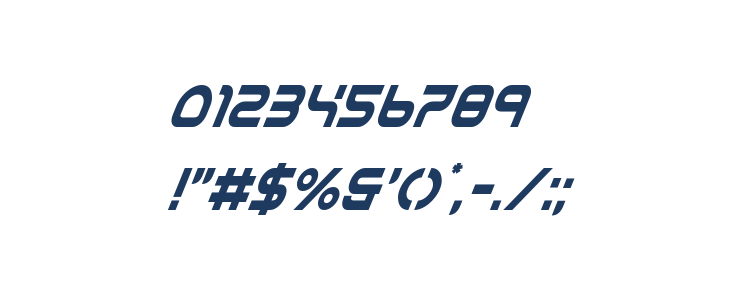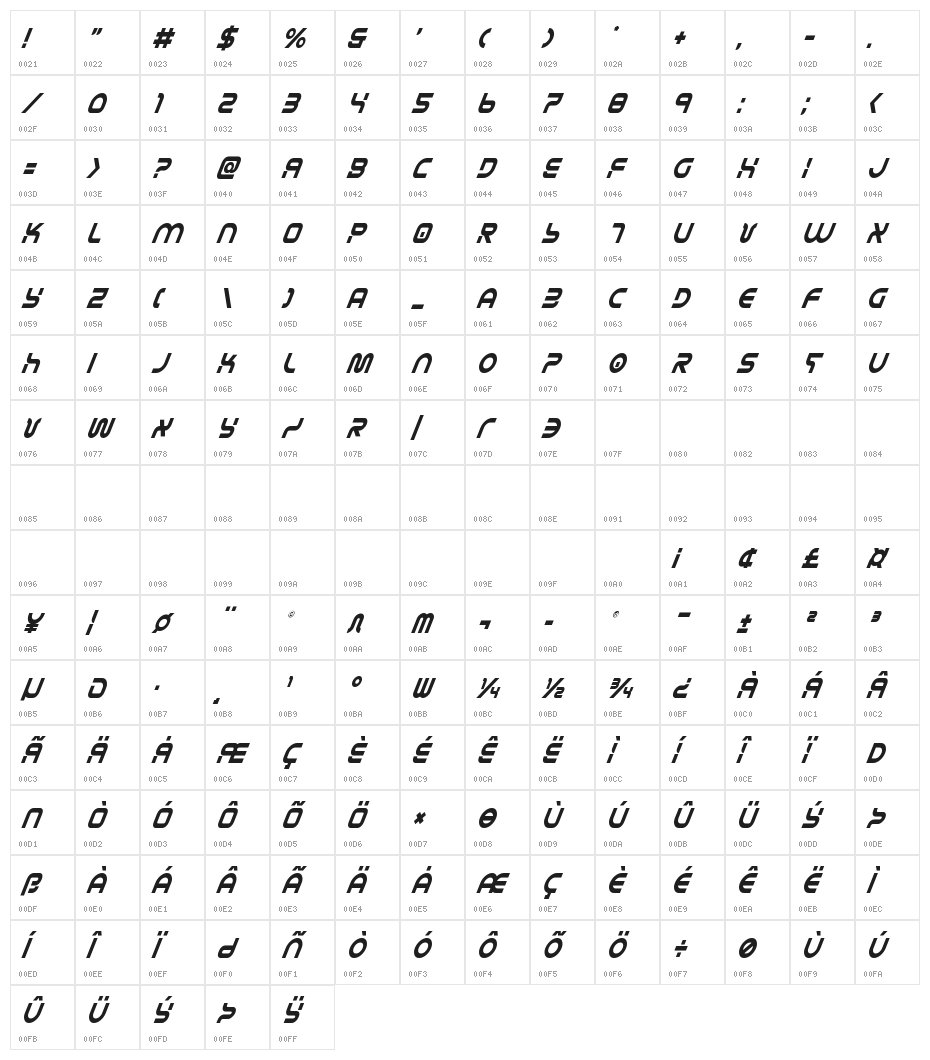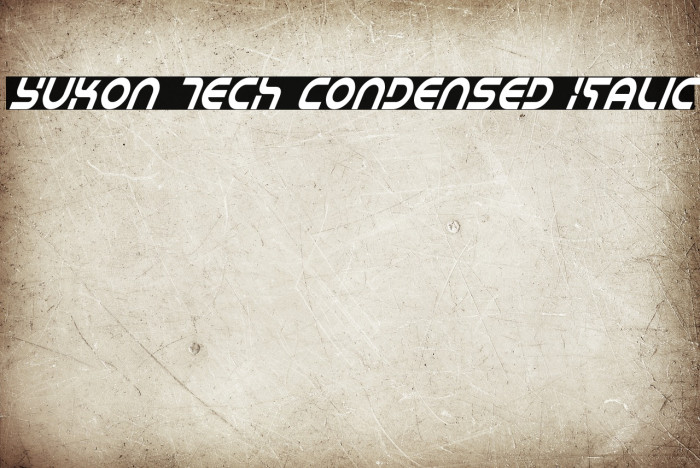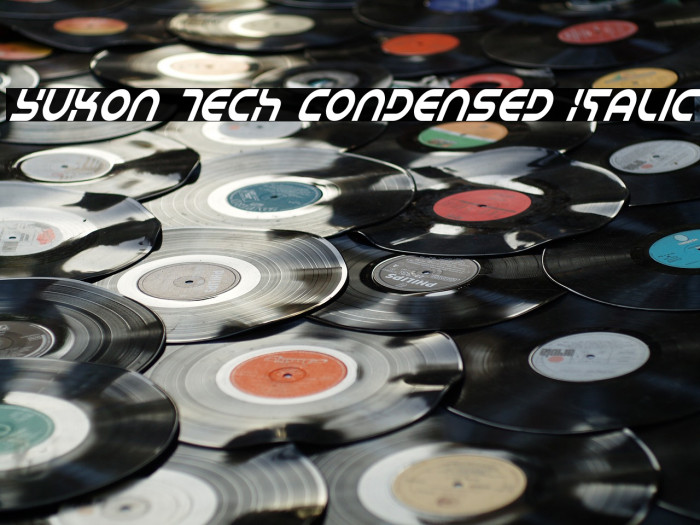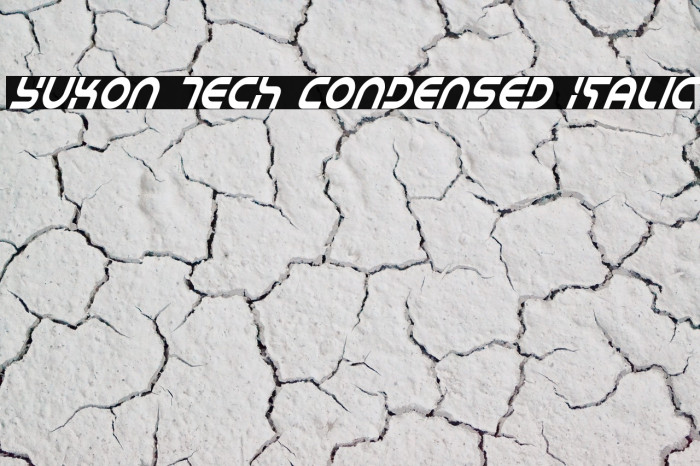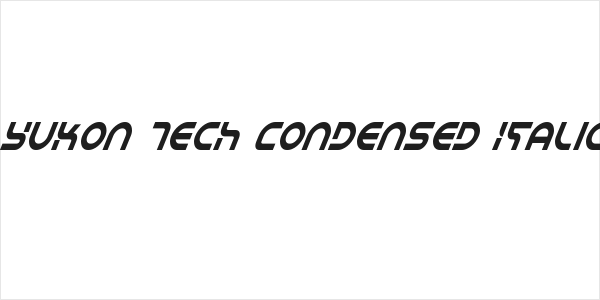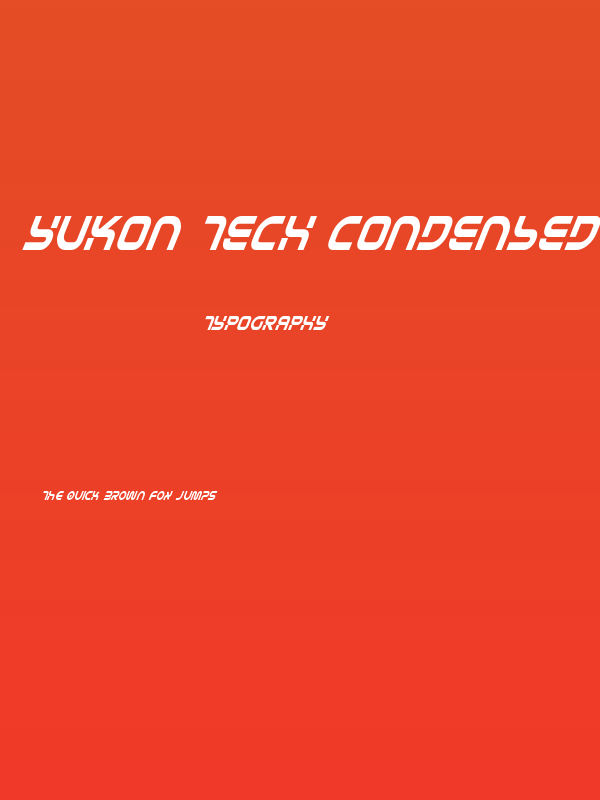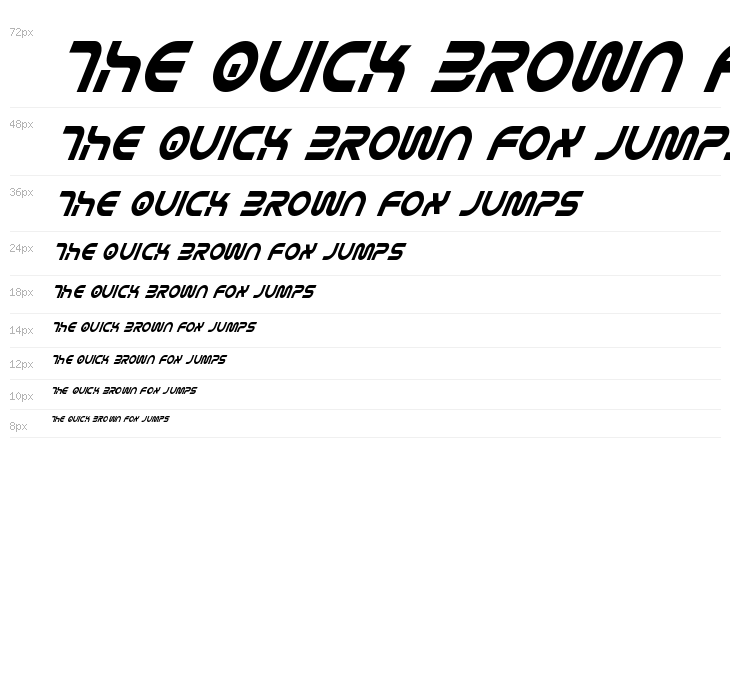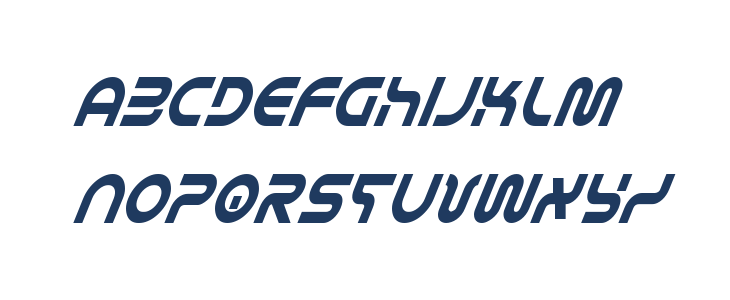
Yukon Tech Condensed Italic Font
Yukon Tech Condensed Italic Description
This font features a futuristic and technical design, characterized by its condensed and italicized letterforms. The strokes are bold and angular, with a distinct slant that gives it a dynamic and forward-moving appearance. The geometric shapes and sharp edges contribute to its modern and sleek aesthetic. The characters are tightly spaced, enhancing the compact and efficient look. This style is ideal for projects that require a high-tech or sci-fi theme, offering a unique and eye-catching visual impact.
Proposed ProjectsIdeal for technology branding, sci-fi movie posters, video game titles, and futuristic product packaging.